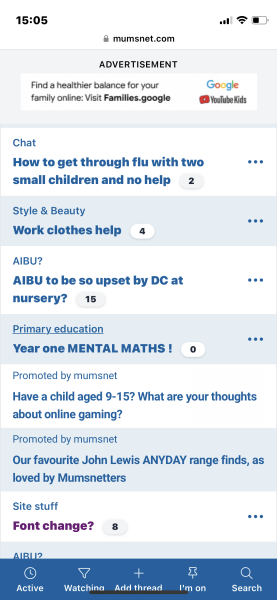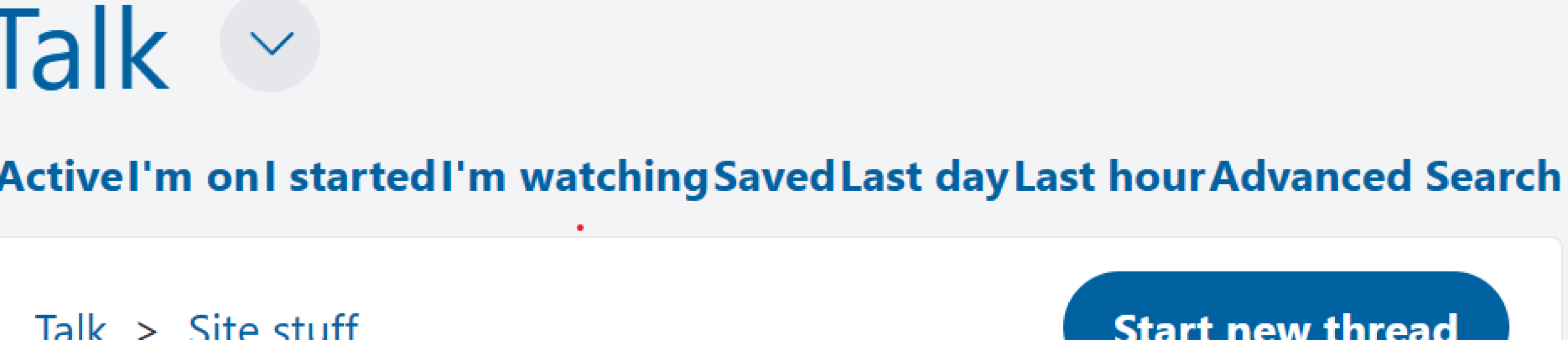
Font change?
Have you done something to the font today MN?
Mine has suddenly changed for all MN posts (all other sites are fine and unchanged).
Headers/footers and buttons appear the same but the active lists and all of the posts are suddenly showing in a different font.
Mine hasn't changed! Can you get a screenshot?
I was just on my way to start a thread about this. its awful on the eye.
I like the new font.
What I DON'T like is that the button bar has vanished from the bottom of the thread and is allbunchedupatthetopofthethread instead, eeesh!
It's coming and going for me. A weird glitch.
It's different but it's subtle. I like it
Mine has changed also.
Mix of fonts here. Some bold some not.
Another unnecessary tweak imo, like the bar of icons below each post that everyone hated, feedback was clearly given, and ignored.
It’s like they’ve employed someone just to mess around with settings on a daily basis.
Promoted by MN normal font
Others in bold.
"It’s like they’ve employed someone just to mess around with settings on a daily basis."
Yep, what is the actual point of all this messing with the smallest thing?
MineDoesntLookLikeThat!
So glad I'm not insane!
I hate the new font. Spacing between letters makes it look wonky and the headers are all squashed. Reset to previous, please.
Mine changed when I clicked on to the next page of a thread I was reading, I thought my eyes had gone all funny!
Glad it's not just me!
It's horrible though 😣
Mine cinched after my PC was updated by MSoft.
I like it
Your bold looks horrible!
It doesnt actually look bold, just like its thinking about being bold but not putting the effort in 😂
Chrome here. But the font doesn't bother me at all.
I'm on Chrome...this font is giving me a headache.
Harder to read. Please revert back.
Chrome on windows desktop.
I'm on Firefox and it's making me bog-eyed
Safari iphone
I like it
So much easier to read.
We've changed the font because the one we were using was causing performance issues - we're doing a lot of work at the moment to try and improve the speed of the site.
We're working through any issues the change causes for people on different devices, so please do keep posting anything you spot anything that doesn't seem right!